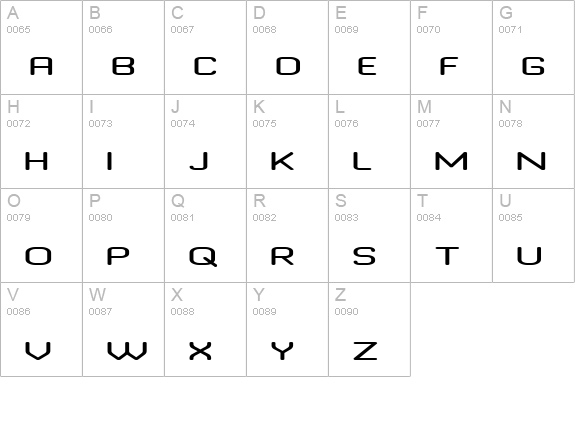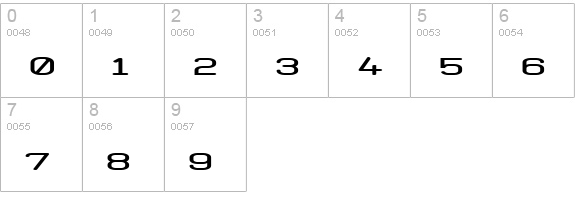
Brave New Era (flat) G98 Font Details
Brave New Era (flat) G98 font is a stunning display typeface that exudes modernity and sophistication. With its clean lines and bold characters, this font is perfect for making a statement in any design project. Its sleek, futuristic look is sure to catch the eye and elevate your work to the next level. What's even better is that Brave New Era (flat) G98 font is available for free download at FontsMarket.com. This means you can easily add this stylish font to your collection without any cost. Don't miss out on this opportunity to enhance your designs with the sleek and contemporary Brave New Era (flat) G98 font. Download it today and start creating amazing projects with ease!